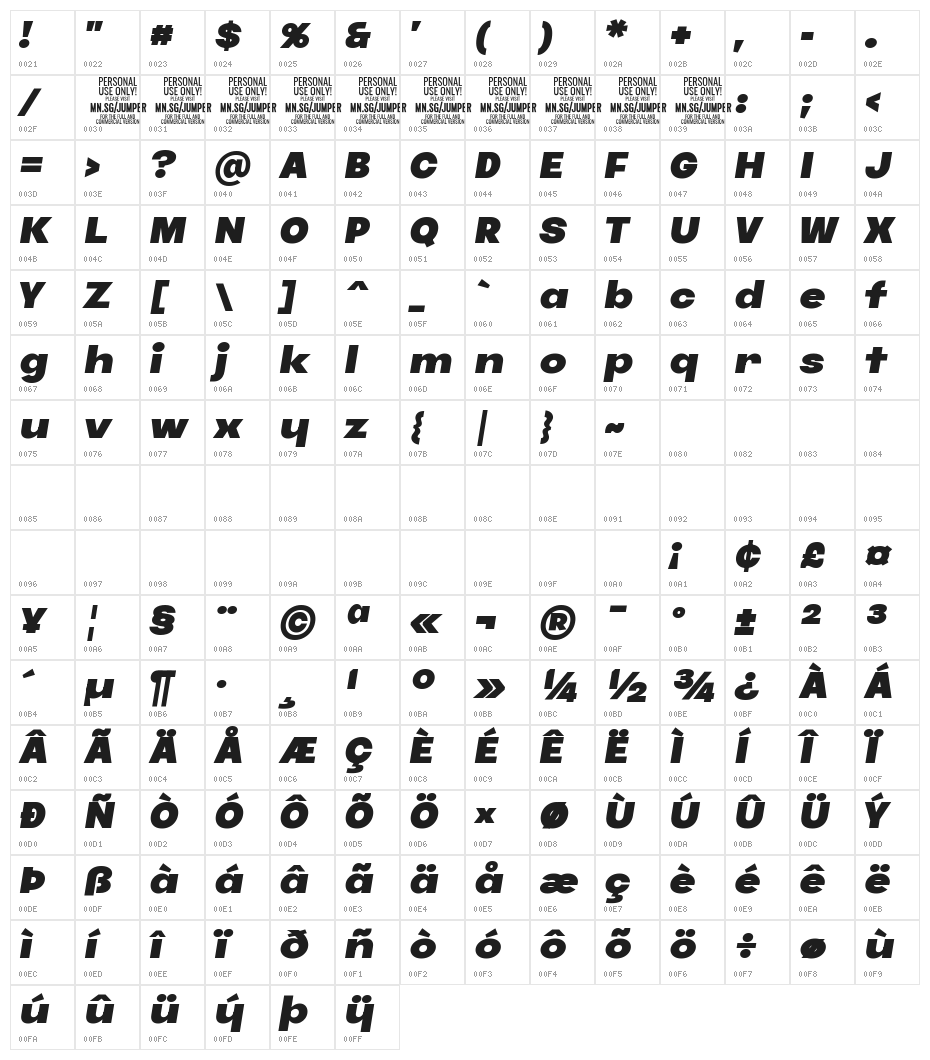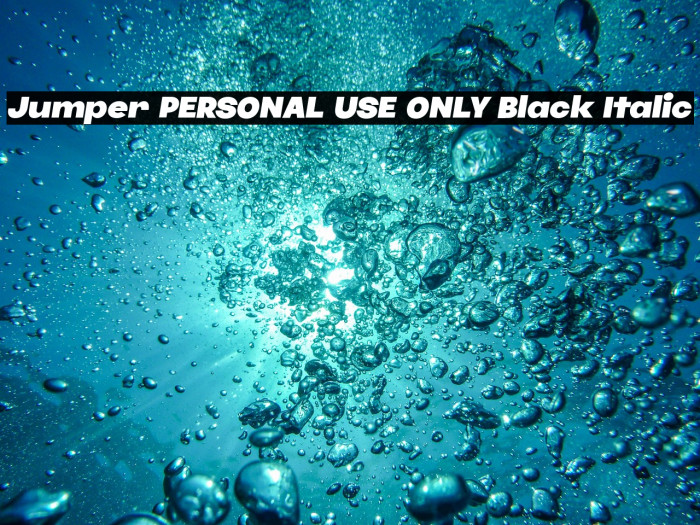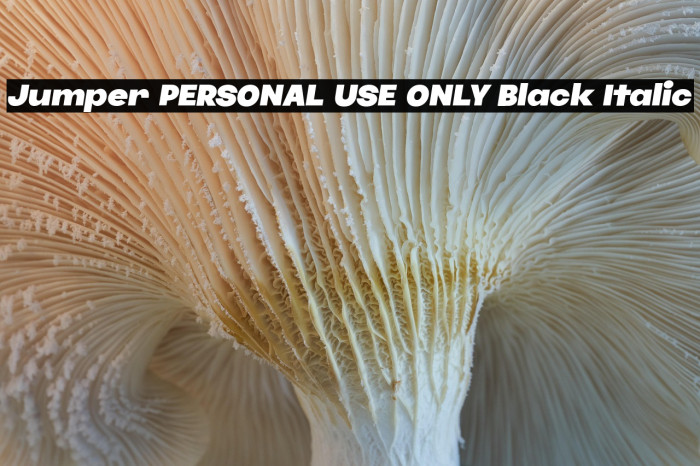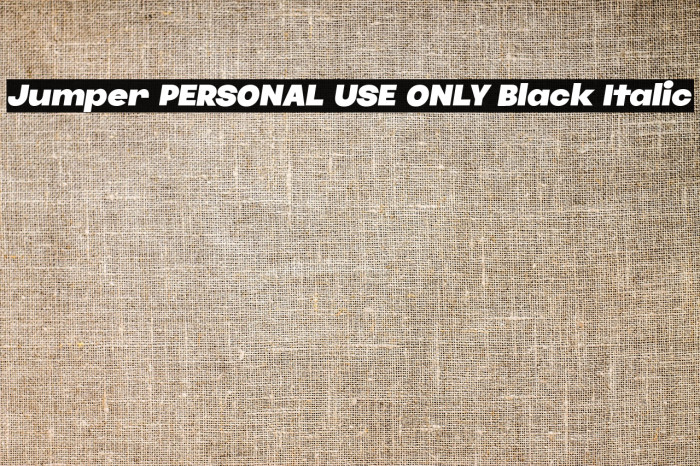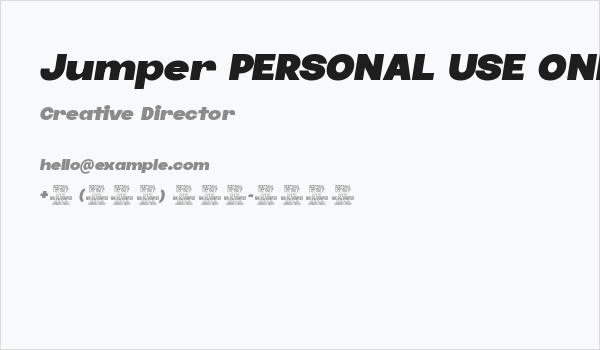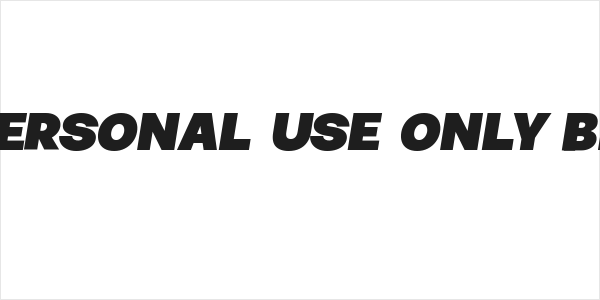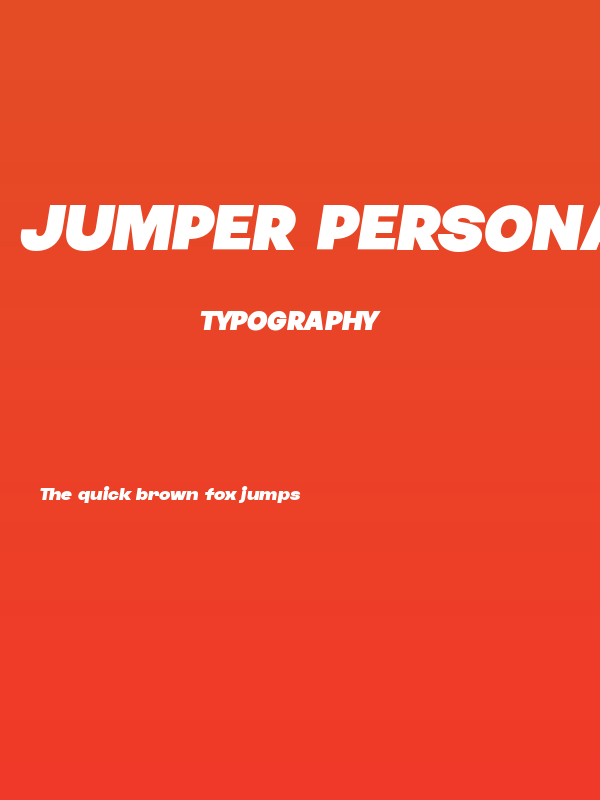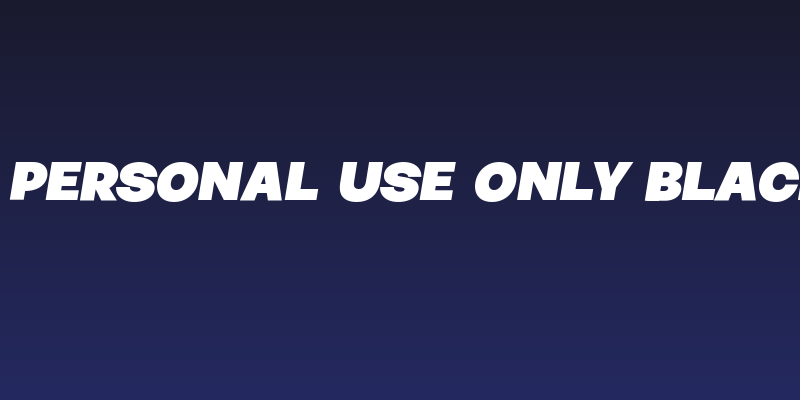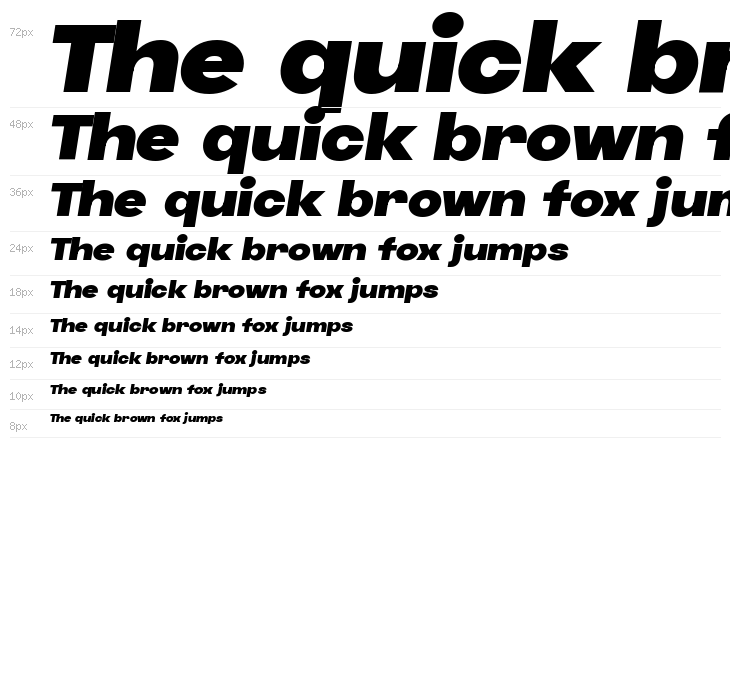
Jumper PERSONAL USE ONLY Black Italic Font
Jumper PERSONAL USE ONLY Black Italic Description
This bold and dynamic font features a strong, italicized style that exudes confidence and energy. The uppercase and lowercase letters are designed with a slight forward slant, adding a sense of motion and urgency. The characters are bold, with thick strokes that ensure high visibility and impact. The numbers and special characters maintain the same bold and italicized characteristics, providing a cohesive look across all elements. This font is ideal for making a statement, with its powerful presence and modern appeal.
| Proposed Projects | Ideal for headlines, posters, branding, and advertising where a strong, impactful presence is needed. |